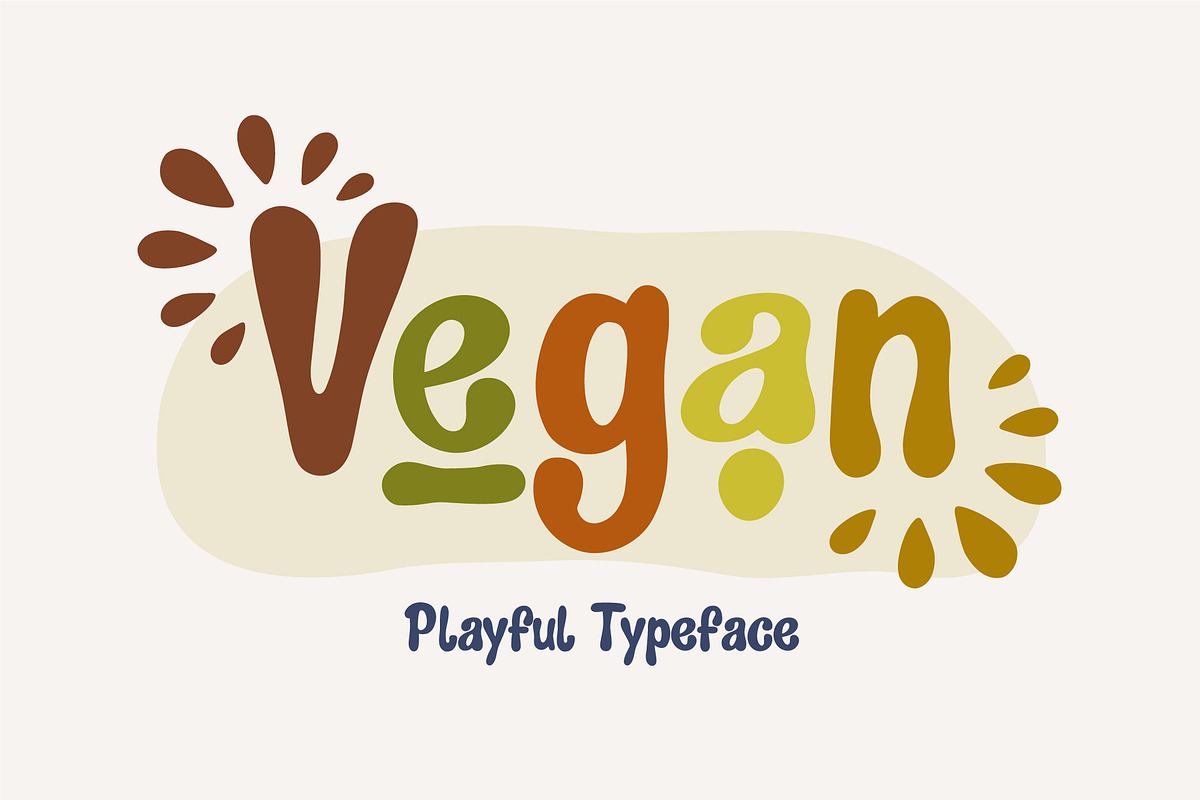
Vegan playful font Free Download
Vegan Playful Font Free Download
Vegan Playful Font Free Download is a fun and lively typeface designed to bring a touch of whimsy and joy to your projects. With its rounded edges, bubbly letterforms, and playful character, this font is perfect for children's books, product packaging, social media graphics, posters, and casual branding.
Whether you're working on a friendly logo, a creative flyer, or a vibrant design for a food brand, Vegan Playful Font Free Download adds personality and energy to your typography. Its cheerful design works great in both print and digital formats, ensuring that your message stands out with warmth and joy.